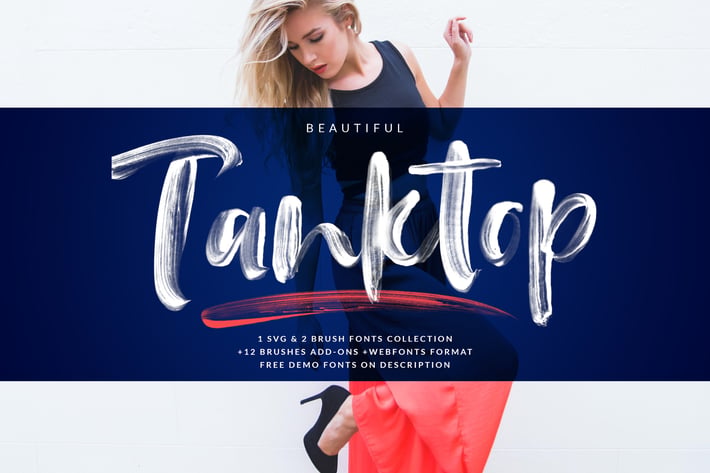
Tanktop SVG + Webfonts & Brush Fonts
As you know, SVG Brush Fonts are the trends fonts at the moment. So, I try to make something fresh work here. Hope you all like it. I named it "Tanktop SVG & Brush Fonts".
Okay, let's look more closely. SVG Tanktop is a different format with Tanktop Brush Fonts. But they were taken from the same handwriting.
About quality? Xoxo... I have learned and also worked hard to get it. Tanktop OpenType SVG Fonts are done with high resolution scanning results. Likewise with Tank Top Brush Fonts, high quality scanning and I do tracing manually to get the desired texture.
Ok, There I go for a Beautiful Tanktop SVG & Brush Fonts!